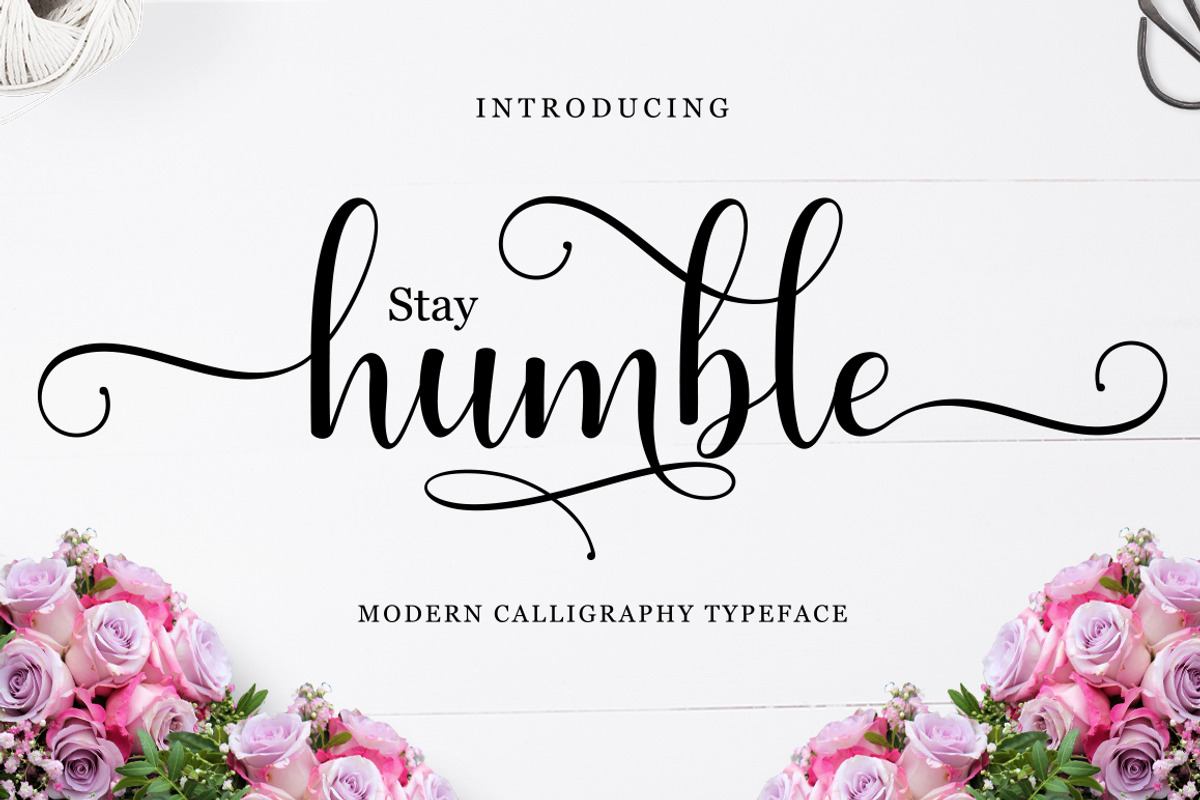
Humble Script Font Free Download is a beautifully flowing, hand-drawn typeface perfect for projects that need a personal and elegant touch. With its smooth curves and natural rhythm, this font is ideal for wedding invitations, branding, social media graphics, and handwritten-style logos. It radiates warmth and charm, giving your designs an authentic, human feel.